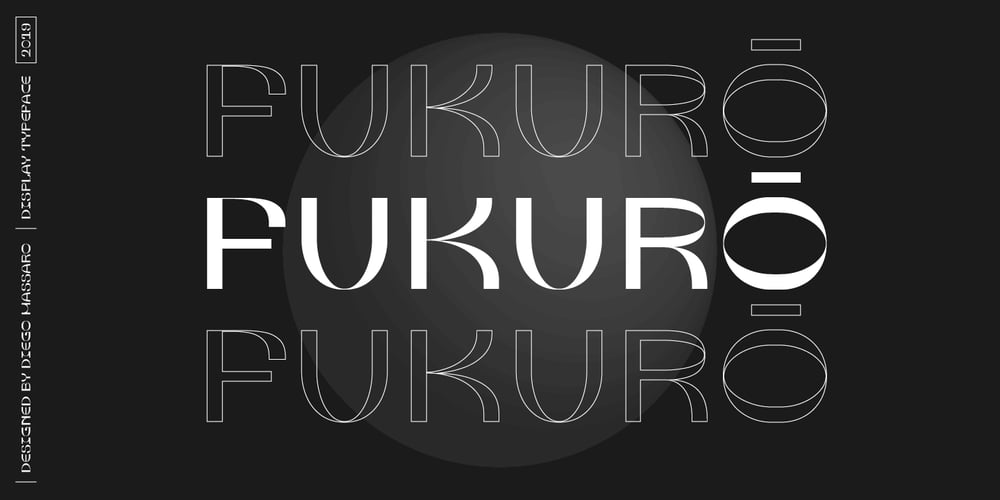
Fukuro Font Family was designed by Diego Massaro and published by Diego Massaro. Fukuro contains 1 styles and family package options. Fukurō recalls diurnal and nocturnal birds of prey. It instills the cutting shapes, the wings, the movement of those animals and translate them into signs. The font experiments new shapes and contrasts that give to it some Japanese aspects.